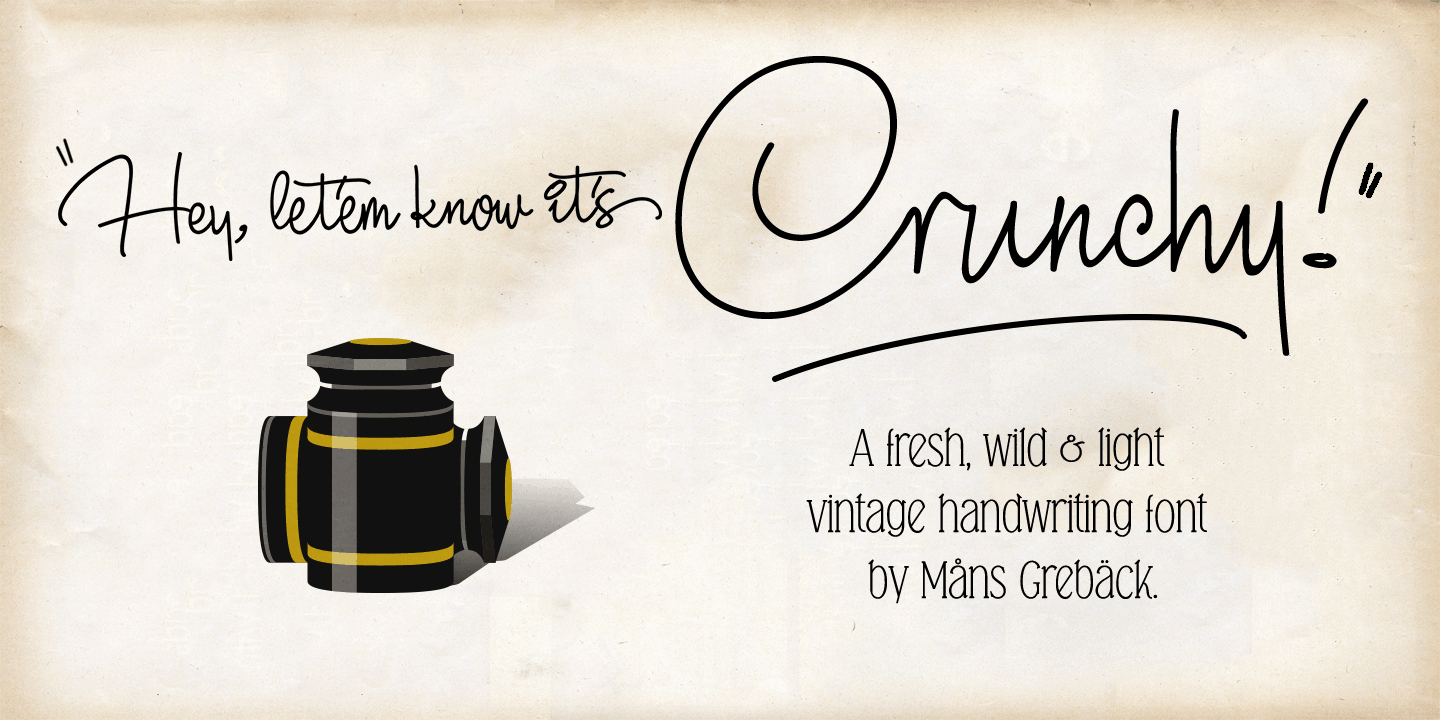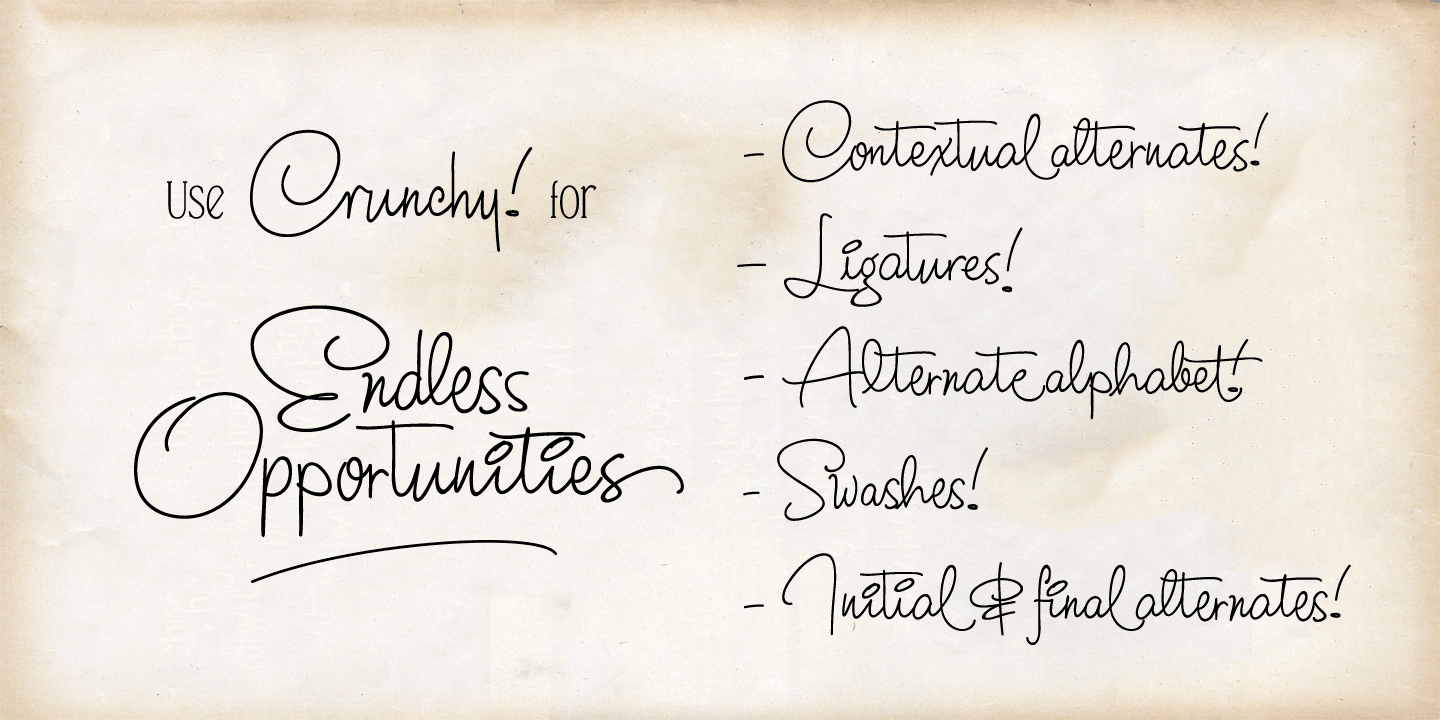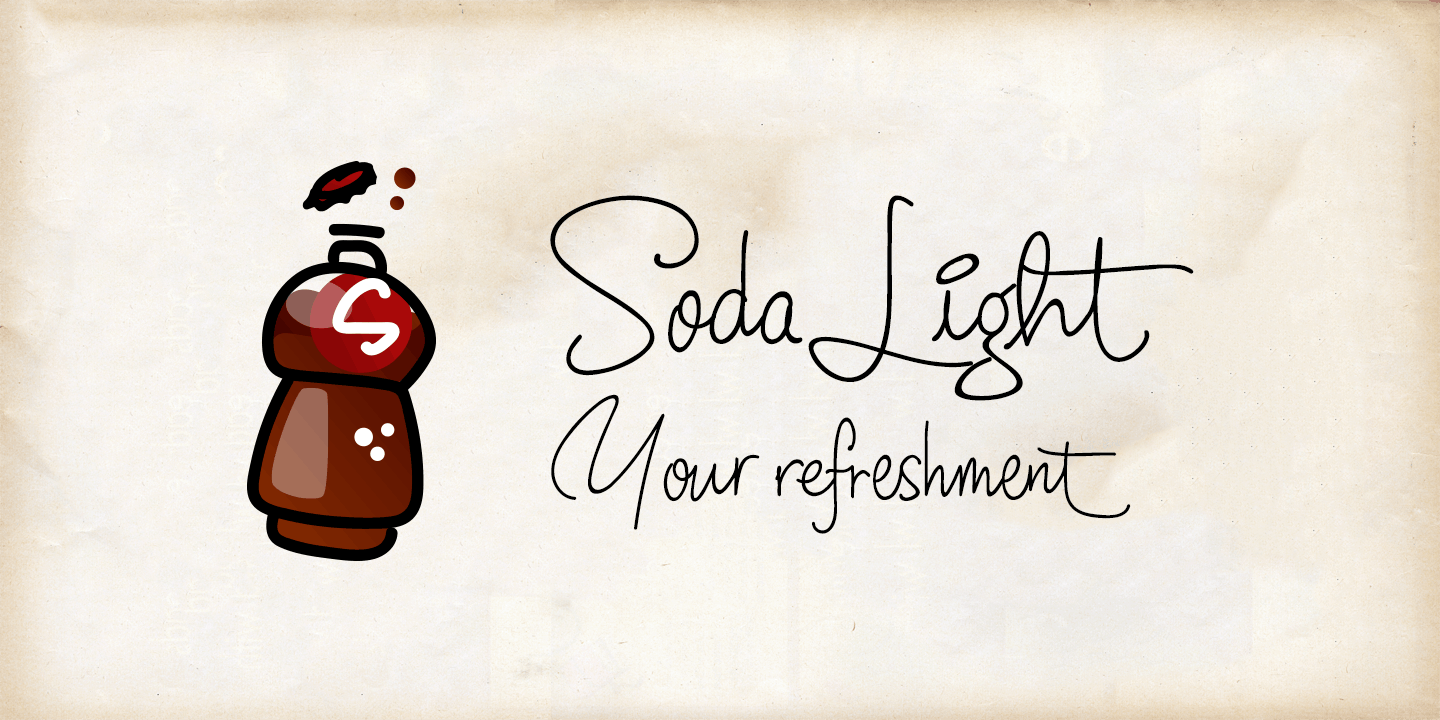
Crunchy
Vintage handwriting font with stylistic alternate alphabet, contextual alternates, swashes, initial and final alternates, as well as ligatures and 200+ special characters.